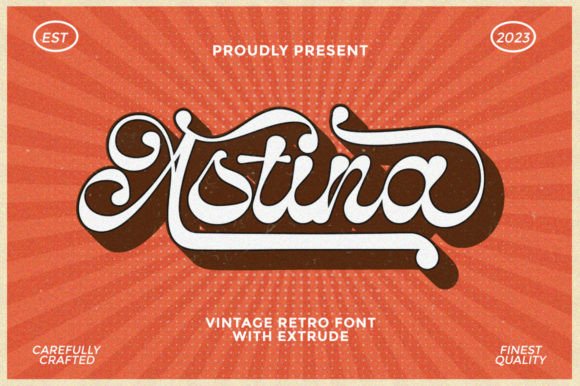
The Retro Revival: Unpacking the Charm of Astina Font
I’ll never forget the design project that led me to discover Astina Font. I was working on a branding campaign for a vintage-inspired boutique, and I was on a mission to find the perfect font that would evoke a sense of nostalgia and playfulness. After hours of scouring through font libraries and testing out various options, I stumbled upon Astina – and it was love at first sight! 💕
With its unique blend of whimsy and sophistication, Astina instantly transported me to a bygone era. I knew right then and there that I had to share this amazing find with fellow designers, crafters, and creative hobbyists. So, let’s dive into what makes Astina Font so special and how you can use it to add a retro touch to your designs.
As someone who’s spent countless hours experimenting with Astina Font, I’m excited to share my honest review with you. Here’s what I love:
- ✨ Unique vintage aesthetic: Astina’s distressed texture and elegant lines make it a standout in any design.
- ✅ Versatility: Whether you’re working on a logo, brochure, or social media graphics, Astina adapts seamlessly.
- 💬 Excellent for headlines and titles: Astina’s bold and playful personality shines through in larger text sizes.
Of course, no font is perfect, and Astina has a few quirks to keep in mind:
- 🤔 Limited use in body text: While Astina is stunning in headlines, it can be a bit challenging to read in smaller text sizes.
- ⚠️ Some glyphs may require manual adjustment: Depending on your design software, you might need to tweak certain characters for optimal spacing.
The Story Behind Astina Font
While the origins of Astina Font are shrouded in mystery, it’s easy to imagine that it was created by a designer with a passion for vintage aesthetics. Perhaps the designer drew inspiration from classic signage, distressed prints, or antique typography. Whatever the story, Astina’s unique blend of playfulness and sophistication has captured the hearts of designers worldwide.
| Font Name | Astina Font |
| Author | LetterFreshStudio |
| What type of designs is Astina Font best suited for? | Astina Font excels in designs that require a retro or vintage touch, such as branding, packaging, and advertising materials. |
| Is Astina Font suitable for body text? | While Astina is stunning in headlines, it may not be the best choice for body text due to its distressed texture and elegant lines. |